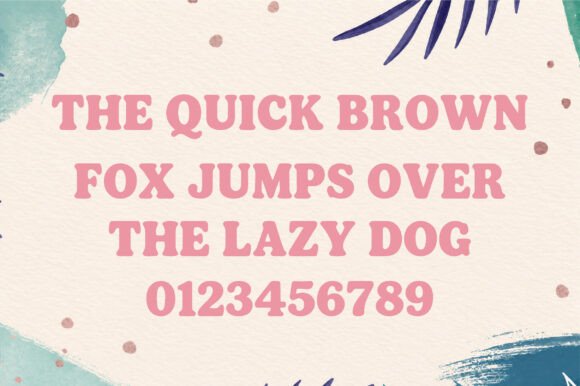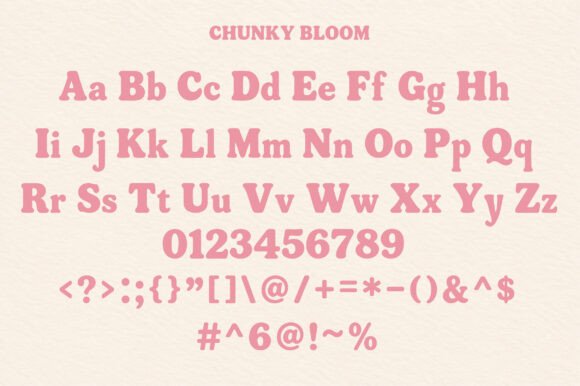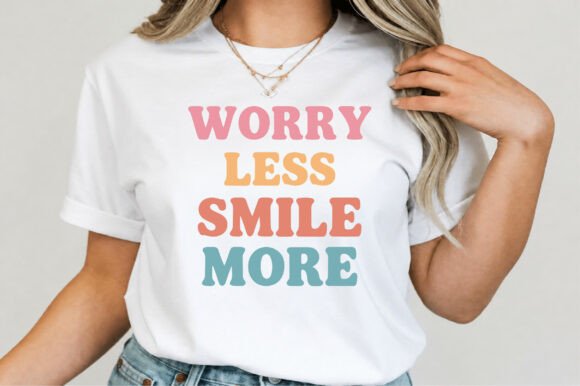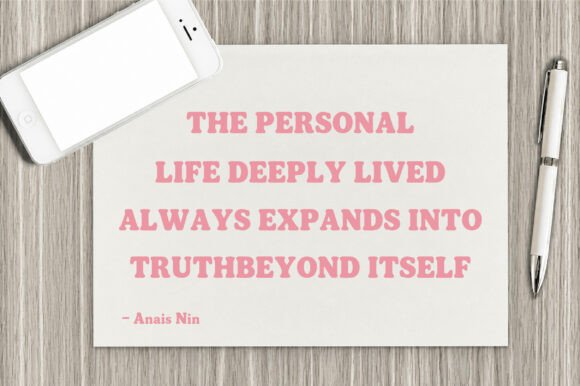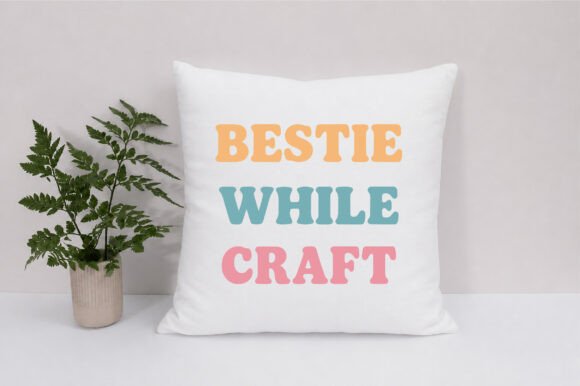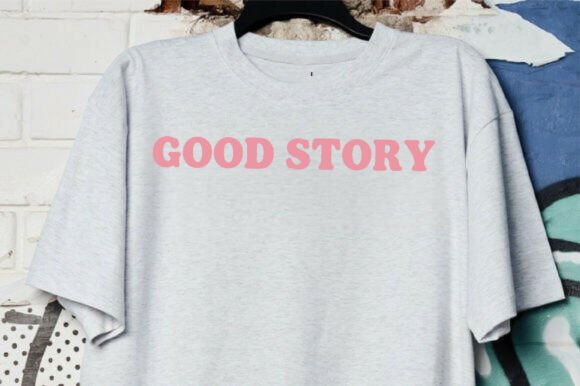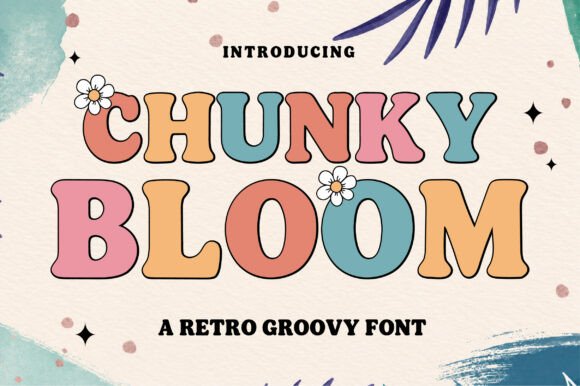
Are you looking for a font that adds a playful and cheerful touch to your creative design projects? Look no further than Chunky Bloom Font! This delightful font is perfect for designers, crafters, and anyone who loves a retro groovy vibe. In this article, we’ll dive into the features and benefits of Chunky Bloom Font, and explore how it can elevate your branding, crafting, and design projects.
What is Chunky Bloom Font?
Chunky Bloom Font is a playful, retro groovy font that boasts bold, chunky curves and a soft, floral-inspired aesthetic. This cute display font brings a vintage 70s vibe to your designs, making it perfect for a wide range of creative projects. Whether you’re working on branding, t-shirts, stickers, posters, sublimation, Cricut projects, invitations, social media graphics, or more, Chunky Bloom Font is the ideal choice.
Key Features of Chunky Bloom Font
So, what makes Chunky Bloom Font so special? Here are some of its key features:
- Uppercase and Lowercase Letters: Chunky Bloom Font features both uppercase and lowercase letters, giving you flexibility and versatility in your designs.
- Numbers and Special Characters: The font also includes numbers and special characters, ensuring that you have everything you need to create stunning designs.
- Bold Chunky Curves: The font’s bold, chunky curves give it a playful and retro feel that’s sure to grab attention.
- Soft Floral-Inspired Aesthetic: The soft, floral-inspired aesthetic of Chunky Bloom Font adds a touch of whimsy and charm to your designs.
Benefits of Using Chunky Bloom Font
So, why should you choose Chunky Bloom Font for your creative projects? Here are just a few benefits:
- Instant Retro Vibe: Chunky Bloom Font instantly adds a retro groovy vibe to your designs, making them stand out from the crowd.
- Versatility: The font’s versatility makes it perfect for a wide range of creative projects, from branding and advertising to crafting and DIY projects.
- Easy to Read: Despite its bold and chunky design, Chunky Bloom Font is easy to read, making it perfect for use in titles, headings, and other design elements.
- Fun and Cheerful: The font’s playful and cheerful design adds a fun touch to any creative project, making it perfect for designs that need to evoke a sense of joy and happiness.
How to Use Chunky Bloom Font in Your Designs
So, how can you use Chunky Bloom Font in your designs? Here are a few ideas to get you started:
- Branding: Use Chunky Bloom Font to create eye-catching logos, business cards, and other branding materials that showcase your brand’s personality.
- T-Shirts and Apparel: The font’s bold and playful design makes it perfect for use on t-shirts, hoodies, and other apparel.
- Stickers and Labels: Chunky Bloom Font is a great choice for stickers and labels, adding a fun and playful touch to your designs.
- Posters and Flyers: Use the font to create stunning posters and flyers that grab attention and evoke a sense of nostalgia.
- Cricut Projects: Chunky Bloom Font is perfect for use in Cricut projects, such as vinyl decals, iron-on designs, and paper crafts.